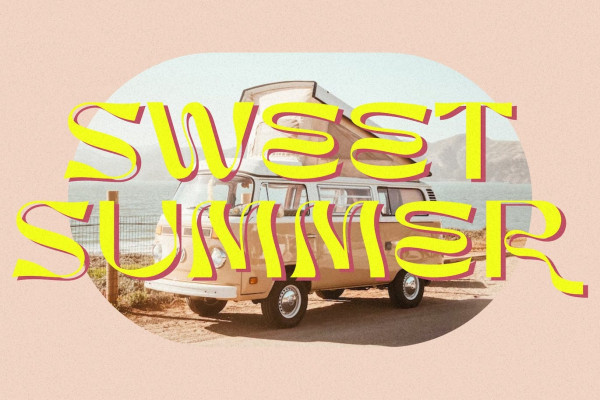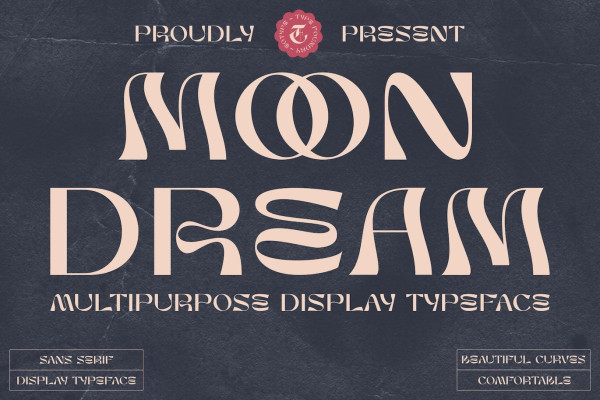
Moon Dream Font
Moon Dream Font is a sans serif wide display font that features beautiful curves. Each end is slightly rounded, which gives the impression of comfort and friendliness. Moon Dream offers a collection of glyphs with unique shapes. With alternate styles and ligature features, this font is perfect for completing various projects.